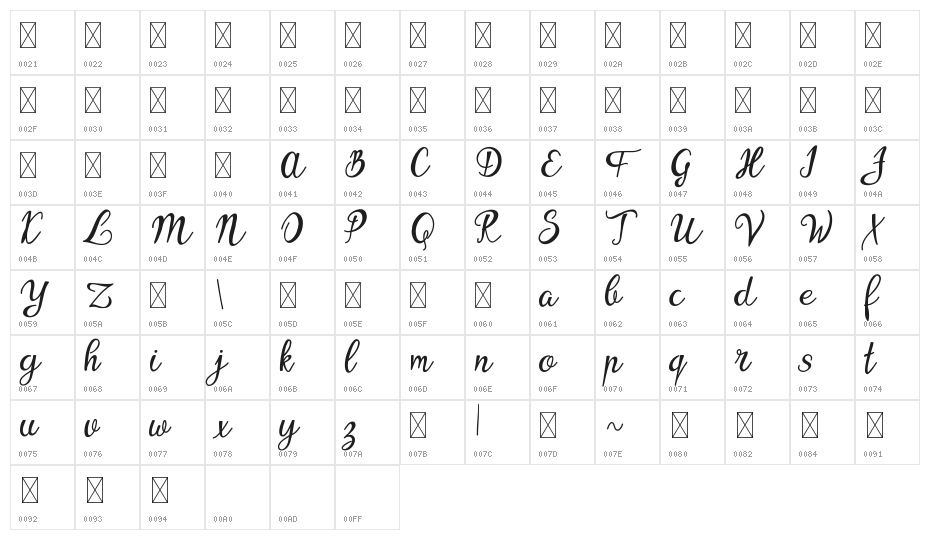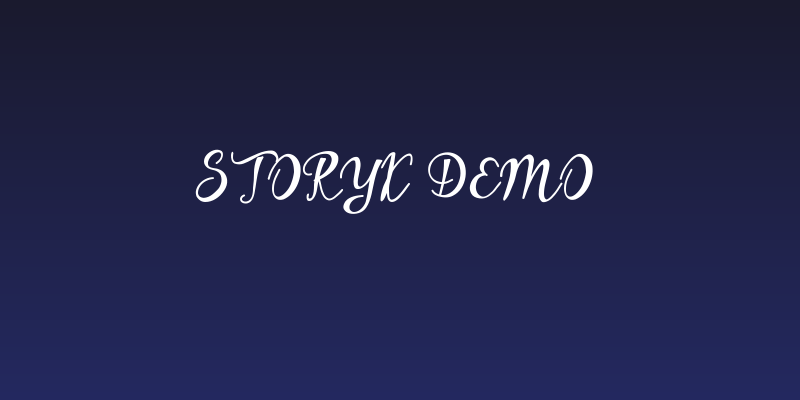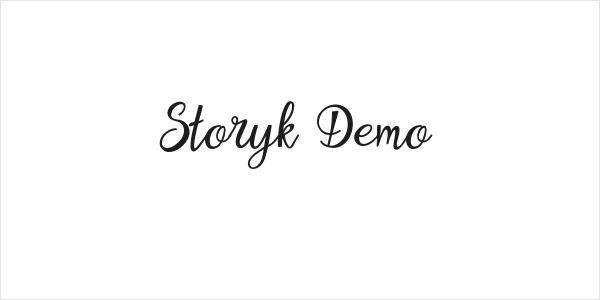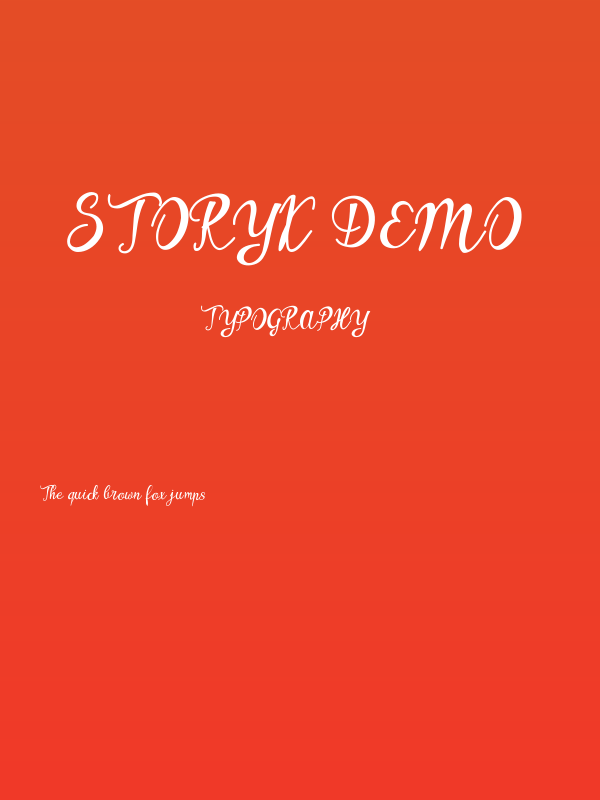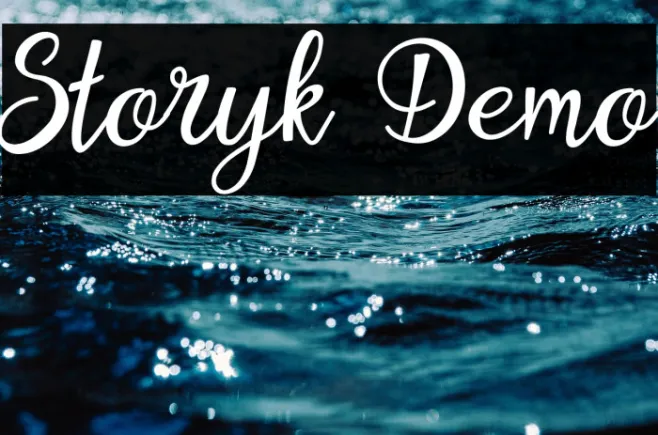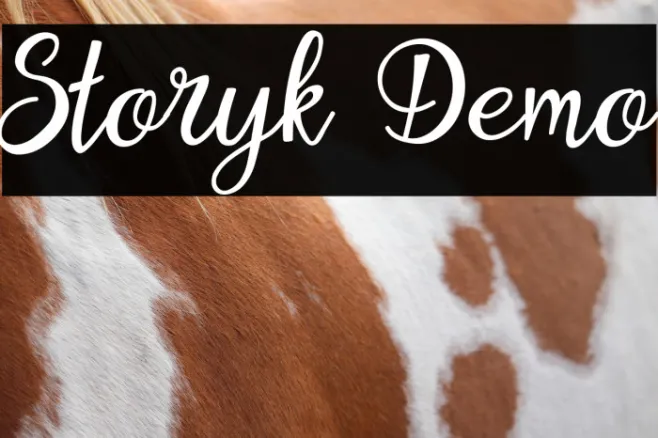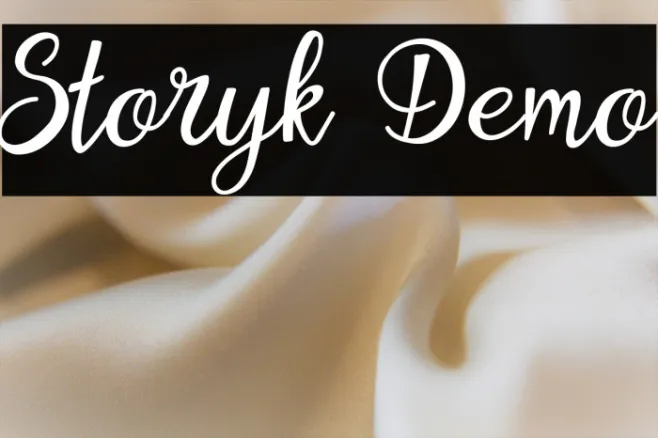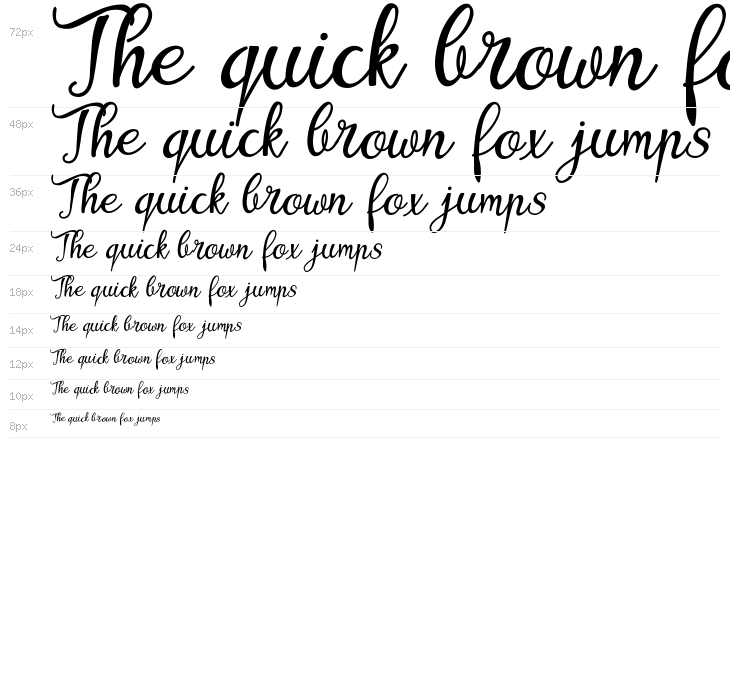
Storyk Demo Font
Storyk Demo Description
This font features an elegant and flowing script style, characterized by its smooth, cursive strokes and graceful curves. The uppercase letters exhibit a sophisticated flair with extended loops and swashes, while the lowercase letters maintain a consistent flow, enhancing readability. The font's design is both artistic and functional, making it suitable for a variety of creative applications. Its balanced weight and moderate contrast in stroke thickness add to its versatility, allowing it to be used effectively in both digital and print media.